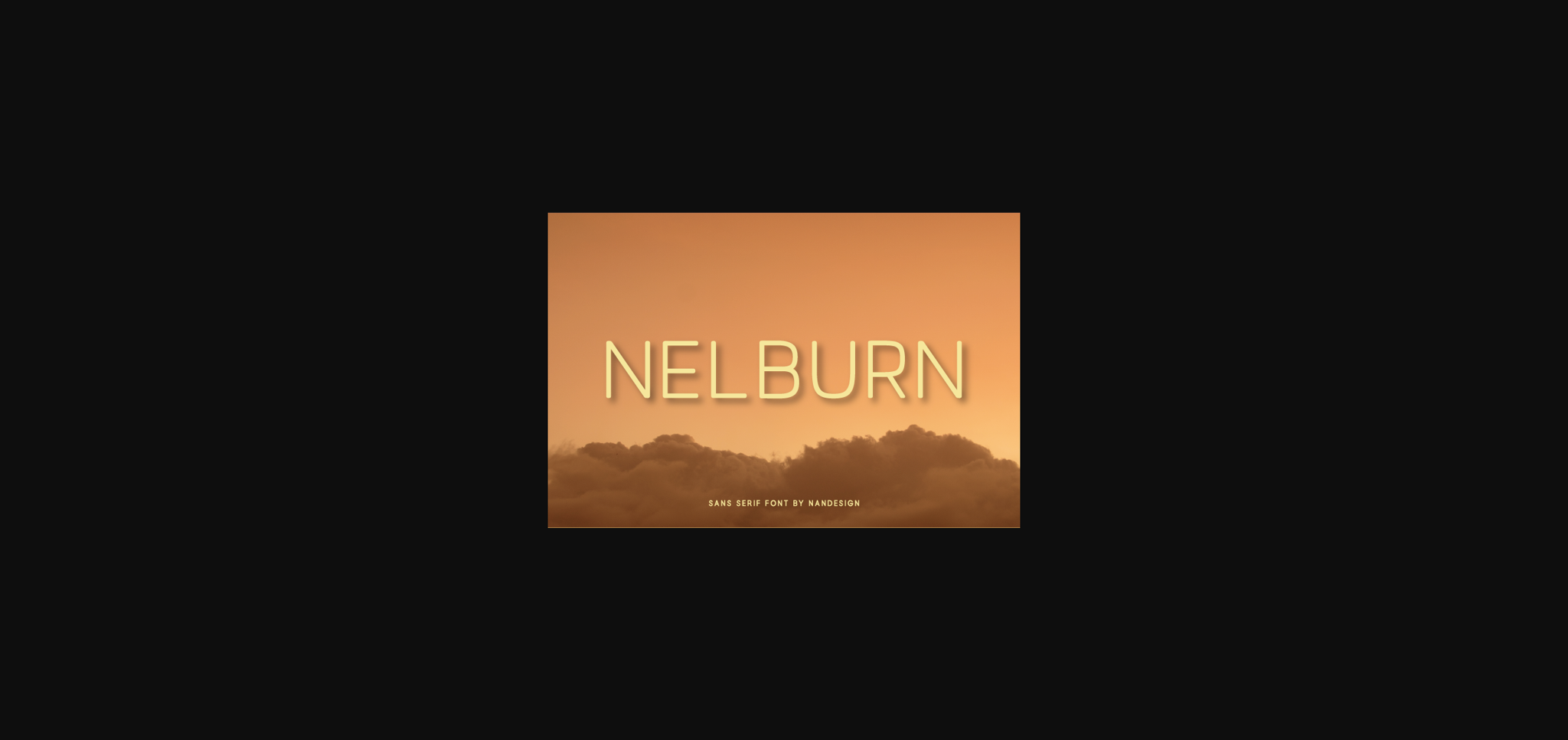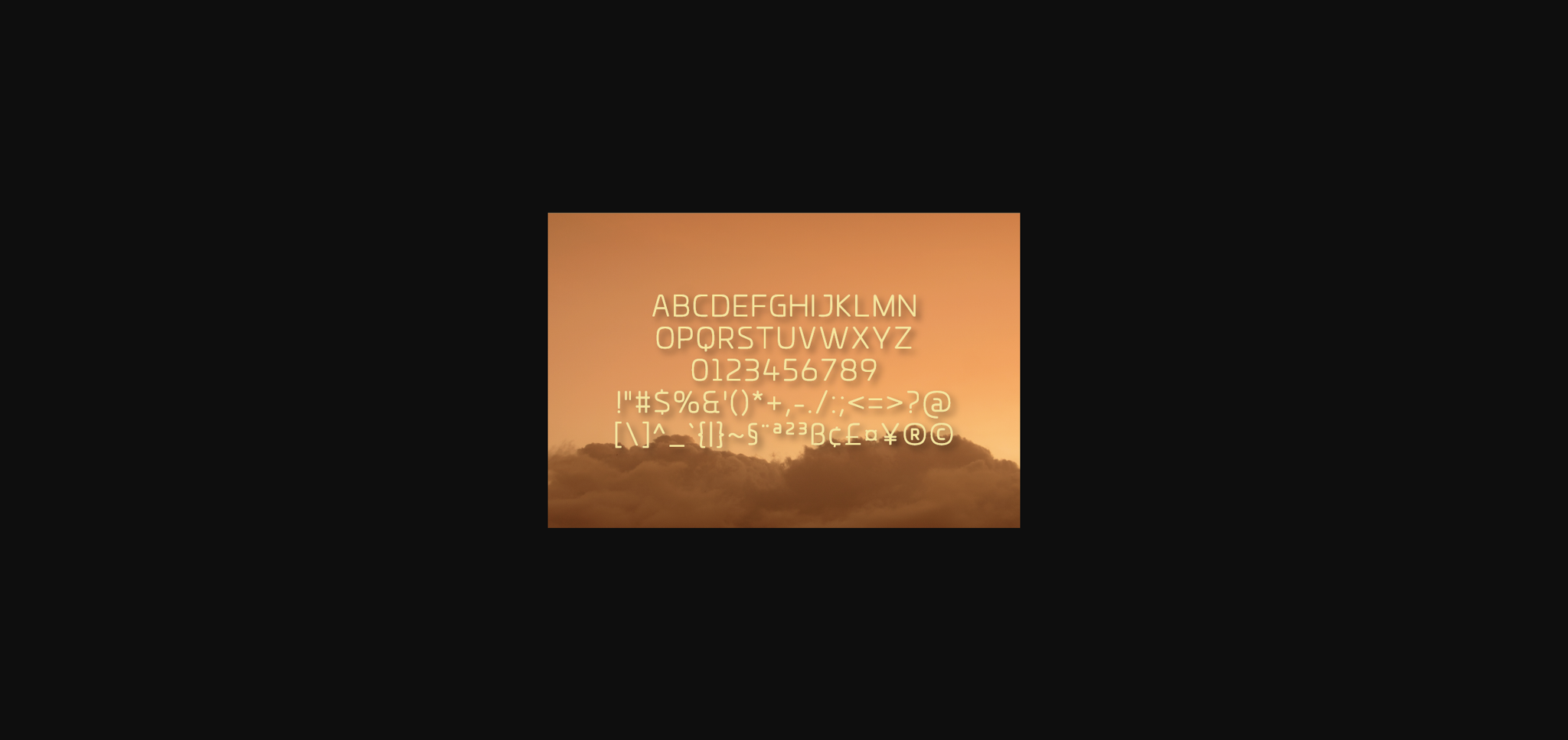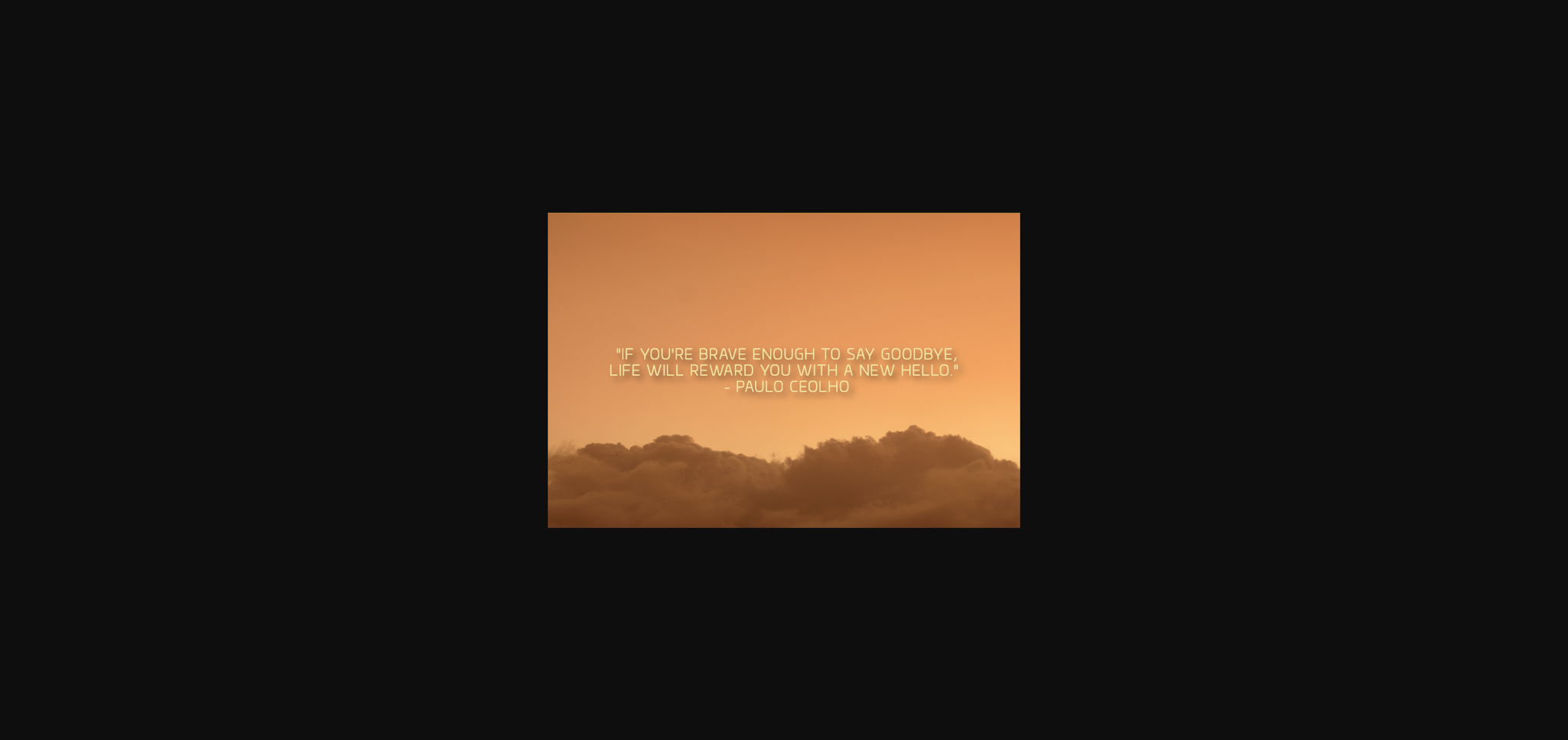
HomeSans Serif FontsNelburn Font Sans Serif Fonts Nelburn Font FacebookXPinterestWhatsApp 1 of 5 ... Nelburn Font Poster 2... Nelburn Font Poster 3... Nelburn Font Poster 4... Nelburn Font Poster 5... About Nelburn Font Nelburn is a great sans serif font. It has an undeniably clean feel. With its neat and beautiful arrangement of letters, this typeface will look outstanding in both formal and non-formal designs. DOWNLOAD NOW People also explored Roughwell Family Font Cute Baby Font Shoreline Font Claudya Font Simple House Aviration Font Skylake Modern Calligraphy Font Judgement A Fatimah Font 295 0 TagsNelburnNelburn Font Previous articleMintlite FontNext articleBrightone Font LEAVE A REPLY Cancel reply Comment: Please enter your comment! Name:* Please enter your name here Email:* You have entered an incorrect email address! Please enter your email address here Website: Save my name, email, and website in this browser for the next time I comment. Personal Use Free Machine House Personal Use Free Read more about this font Snaily Personal Use Free Read more about this font Harshita Personal Use Free Read more about this font Squariess Personal Use Free Read more about this font BLOG Fonts That Capture the Spirit of New York City New York City is more than just a place—it’s an experience, a rhythm, a visual language... Elegant Wedding Invitation Fonts – Handwritten & Script Fonts Top 10 Handwritten Fonts That Elevate Your Designs The 10 Best Handwriting Fonts to Add Personality to Your Designs